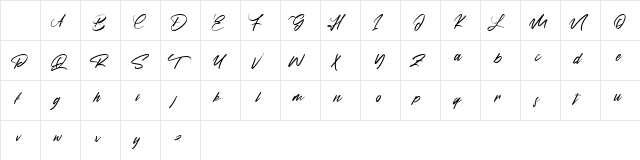
Diettersen Free is a composed and adaptable typeface that performs quietly and consistently across a wide range of design contexts.
Pro Tip: Use Diettersen Free in both headline and body roles to test its range before committing to a single application.